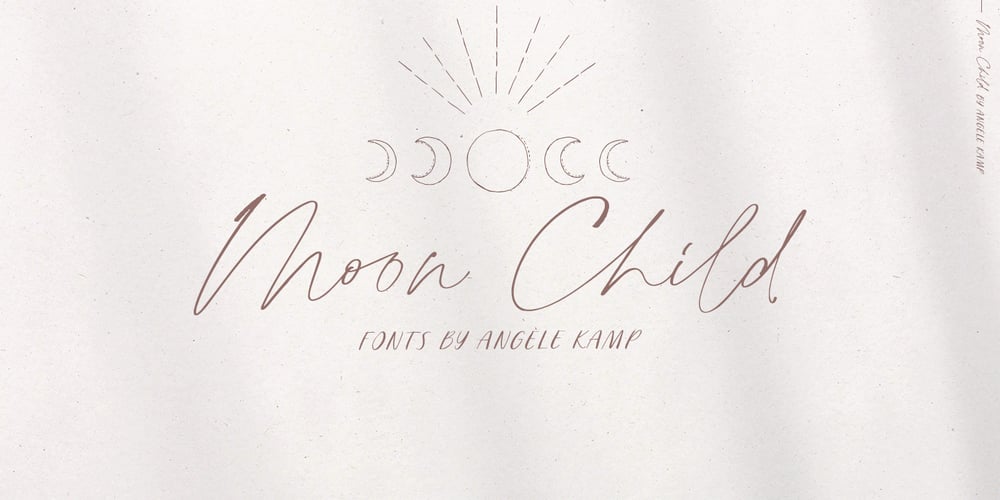
Moon Child
Moon Child font
Moon Child Font Family was designed by Angele Kamp and published by Angele Kamp. Moon Child contains 2 styles and family package options. Introducing Moon Child, an elegant collection of two fonts that pair perfectly together. This collection will make designing Instagram quotes, websites & invitations effortless.What’s IncludedMoon Child Script An elegant script font that includes ligatures that give you that gorgeous hand-lettered look.Moon Child Caps This is an all caps font that pairs perfectly with the script font